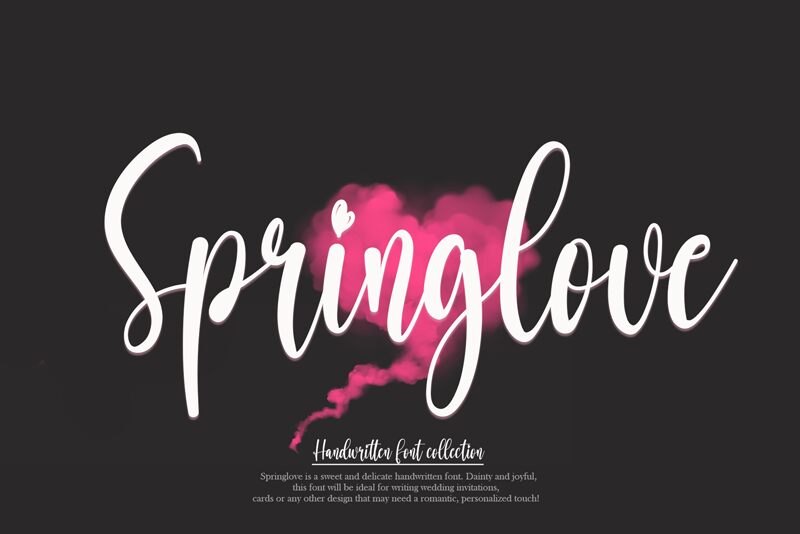
Springlove font
Springlove
This font retains a classy calligraphic influence while feeling contemporary and fresh. Its versatility makes it suitable for a wide range of creative applications, from letterheads and titles to stationery.